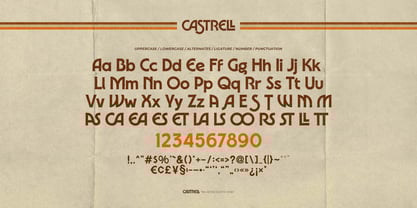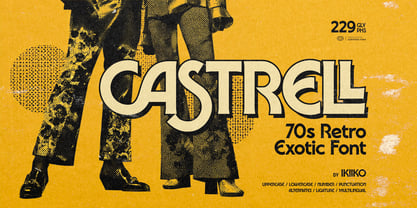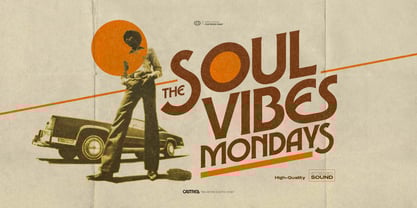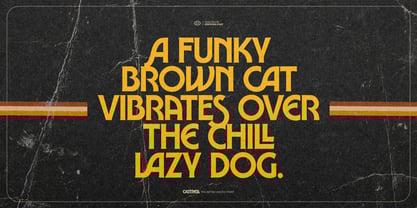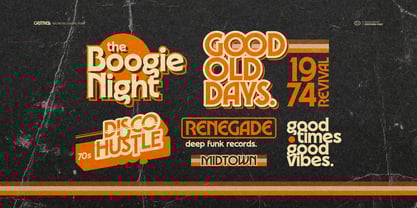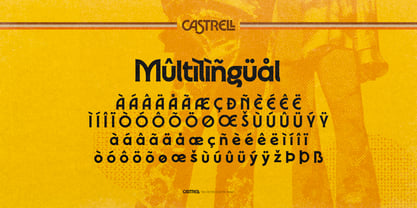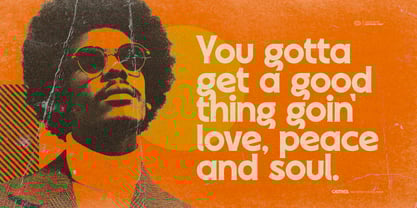
Castrell
The Castrell Font Family was designed by Andhika Pradana and published by IKIIKOWRK. Castrell contains 1 styles.
Proudly Present Castrell - 70s Retro Exotic Font, created by ikiiko Castrell is a groovy typographic revival that channels pure 70s soul and funk energy into every curve. Inspired by vintage disco posters, Afro-funk design vibes, and the golden age of retro cinema, this font moves with rhythm and attitude. It’s bold, exotic, and full of swagger — perfect for designers who crave soulful vibes, funky aesthetics, and that nostalgic retro punch. With its smooth curves and bold style, Castrell shines on movie titles, vintage logos, and retro posters artwork. Each letter feels alive, radiating Afro-soul charisma and an effortless party groove. This typeface is perfect for retro posters, 70s design vibes, vintage logos, movie titles, fashion branding, vintage exotic stuff, and nostalgic apparel. What's Included? Uppercase & Lowercase Numbers & Punctuation Alternates & Ligature Multilingual Support Works on PC & Mac Get also a good offer & FREEBIE at our site Enjoy our font and if you have any questions, you can contact us by email